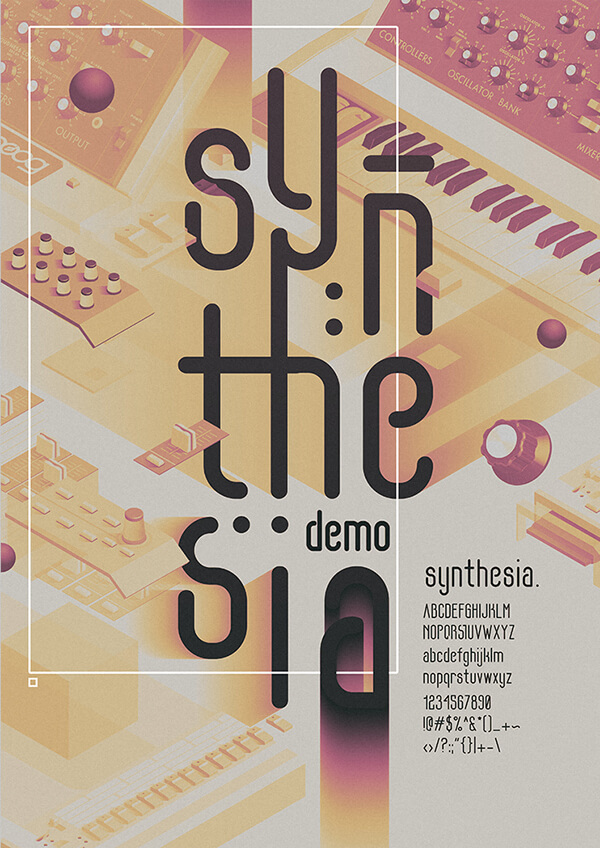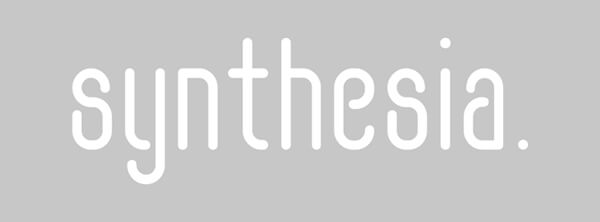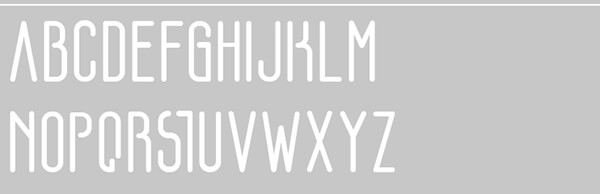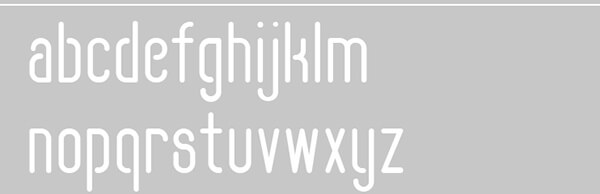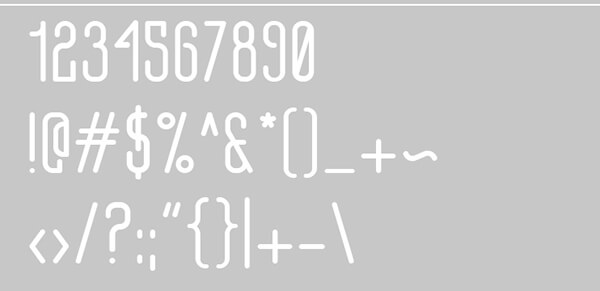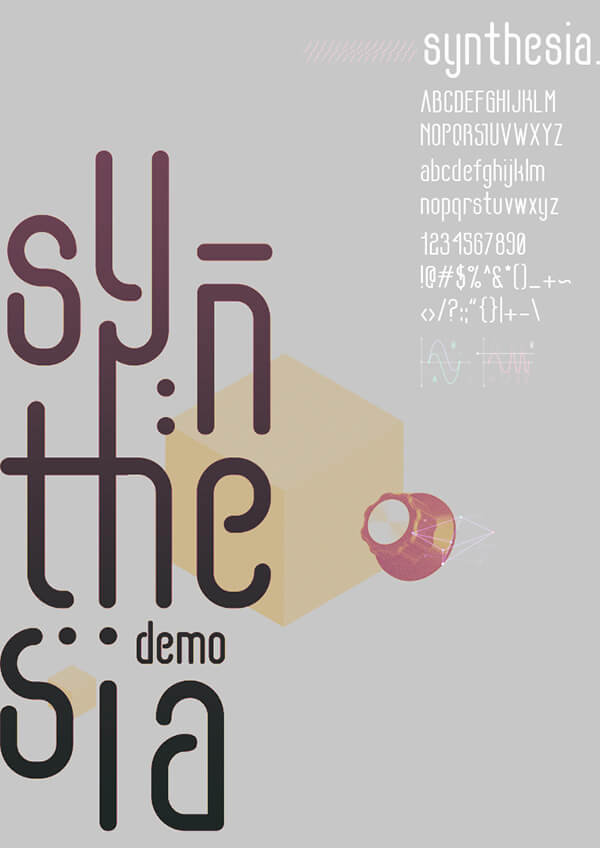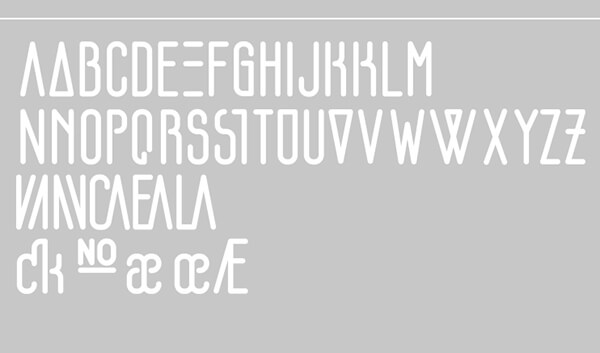
Synthesia free font
Synthesia free font is inspired in the electrical synthesizers (sound of synthesizer MOOG Minimoog) like the author says it’s fun, dynamic and vintage.